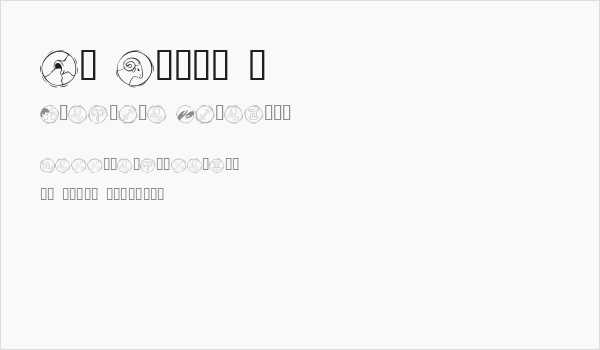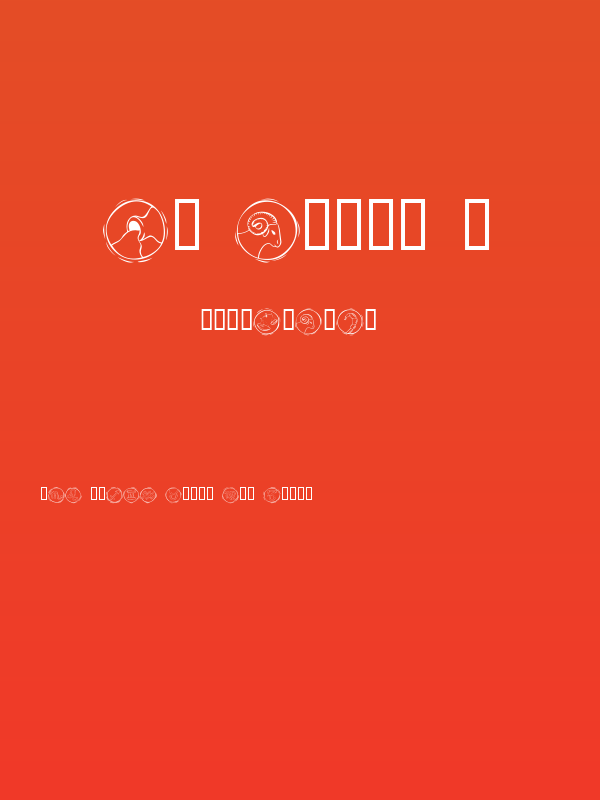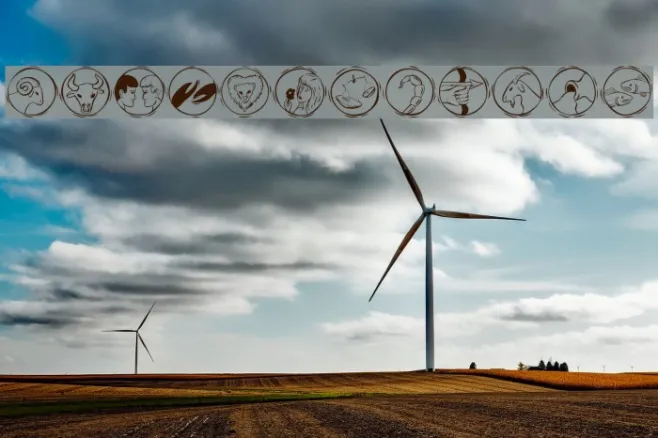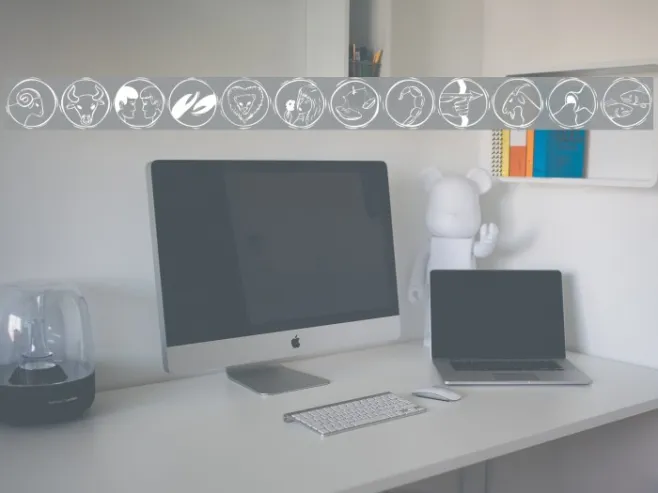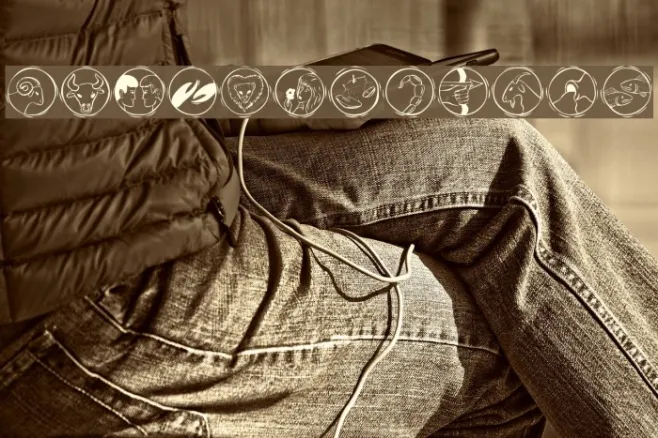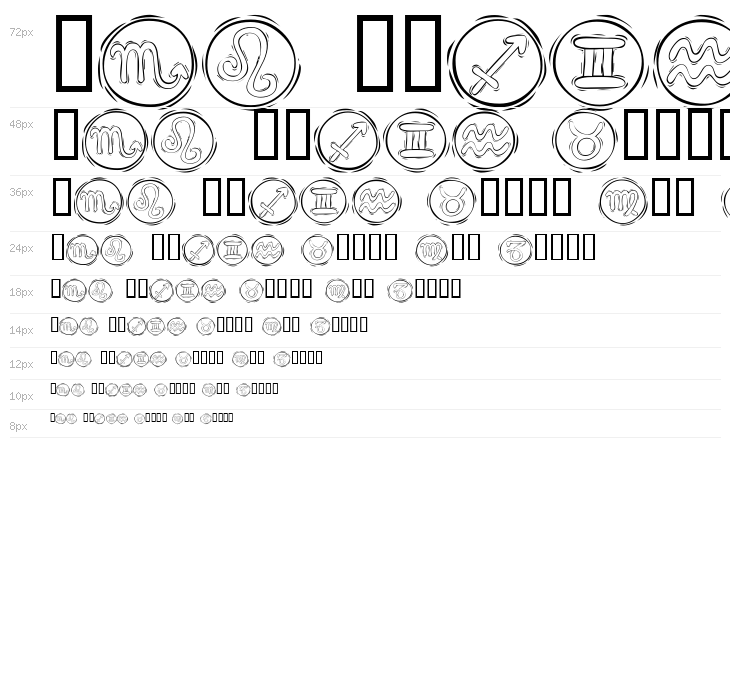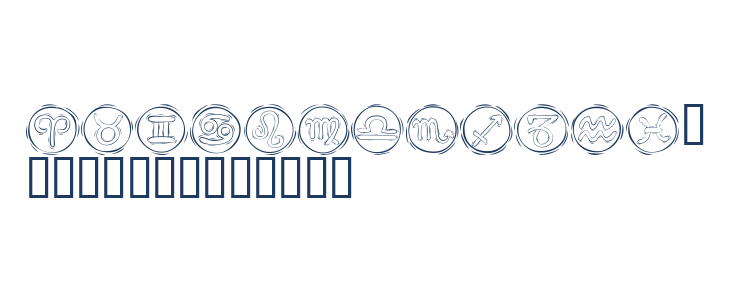
KR Astro 2 Font
KR Astro 2 Description
This font features a series of circular icons, each representing a different astrological sign. Each symbol is intricately designed within a circle, showcasing the unique characteristics of the zodiac signs. The style is decorative and thematic, perfect for projects that require a mystical or celestial touch. The icons are detailed and artistic, making them suitable for use in designs that aim to capture the essence of astrology and the zodiac. The font does not include traditional alphanumeric characters, focusing solely on the symbolic representation of the astrological signs.
| Use Case | Logos, Decorative elements |
| Proposed Projects | Ideal for astrology-themed designs, horoscopes, mystical branding, and decorative projects. |